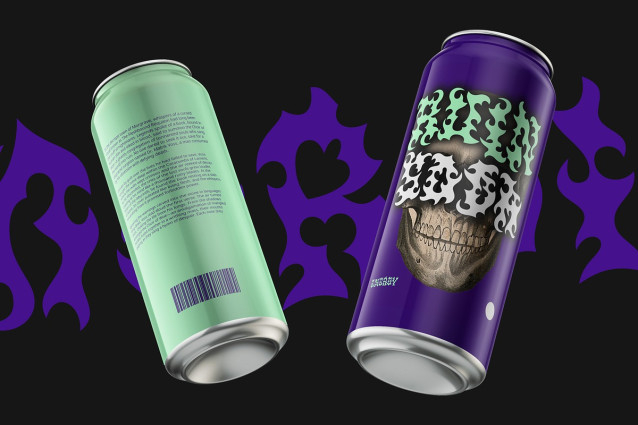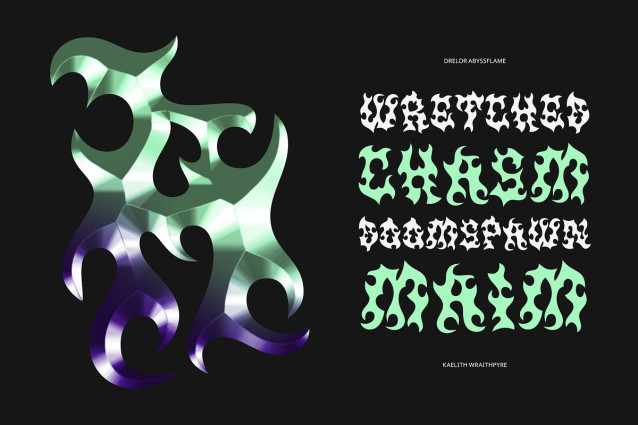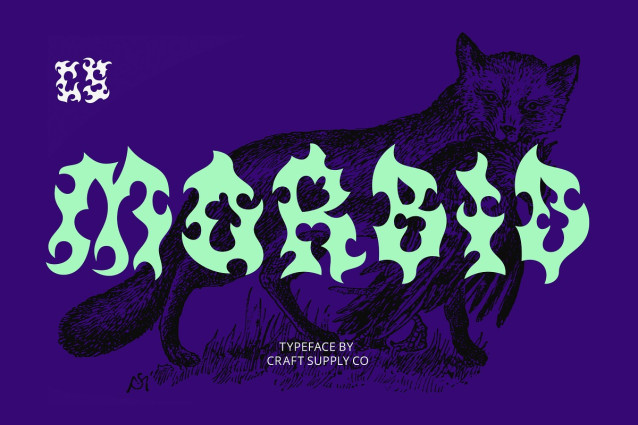
CS Morbid Font
CS Morbid – Black Metal Font is a bold display font that channels the raw, rebellious energy of black metal. With jagged letterforms and aggressive strokes, this font conveys strength, intensity, and an unmistakable edge. It’s designed for projects that demand attention, making it perfect for extreme visual designs that embrace power and uniqueness.
Aggressive Style for Maximum Impact The distinctive, aggressive style of CS Morbid adds a level of intensity to any design. Its sharp, angular forms evoke a sense of dark rebellion and raw emotion, making it ideal for extreme-themed designs.
Perfect for Extreme Visuals and Dark Themes CS Morbid shines in designs that embrace the darkness and intensity of black metal aesthetics. Its raw character and extreme look ensure it stands out in the world of unconventional design.
Versatile for Unique, Unconventional Projects While designed with a bold, intense edge, CS Morbid is versatile enough for a variety of unique, rebellious designs. Its powerful and expressive letterforms are ideal for dark-themed projects such as gothic branding, tattoo designs, and avant-garde visuals. The font’s bold personality makes it an essential tool for creating standout visuals that demand attention and make a statement.